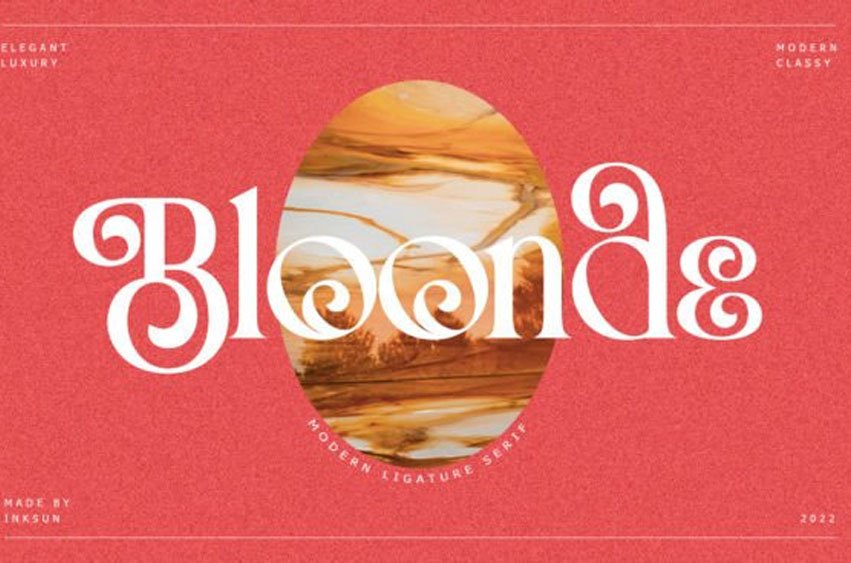
Bloonde Font is a special modern style font. Made with pinpoint accuracy with beautiful curves. With alternate characters and ties that make your work very special.
It’s perfect for branding designs, logos, greeting cards, and title packaging. and other designs. Immediately use our fonts to make your work even more amazing.